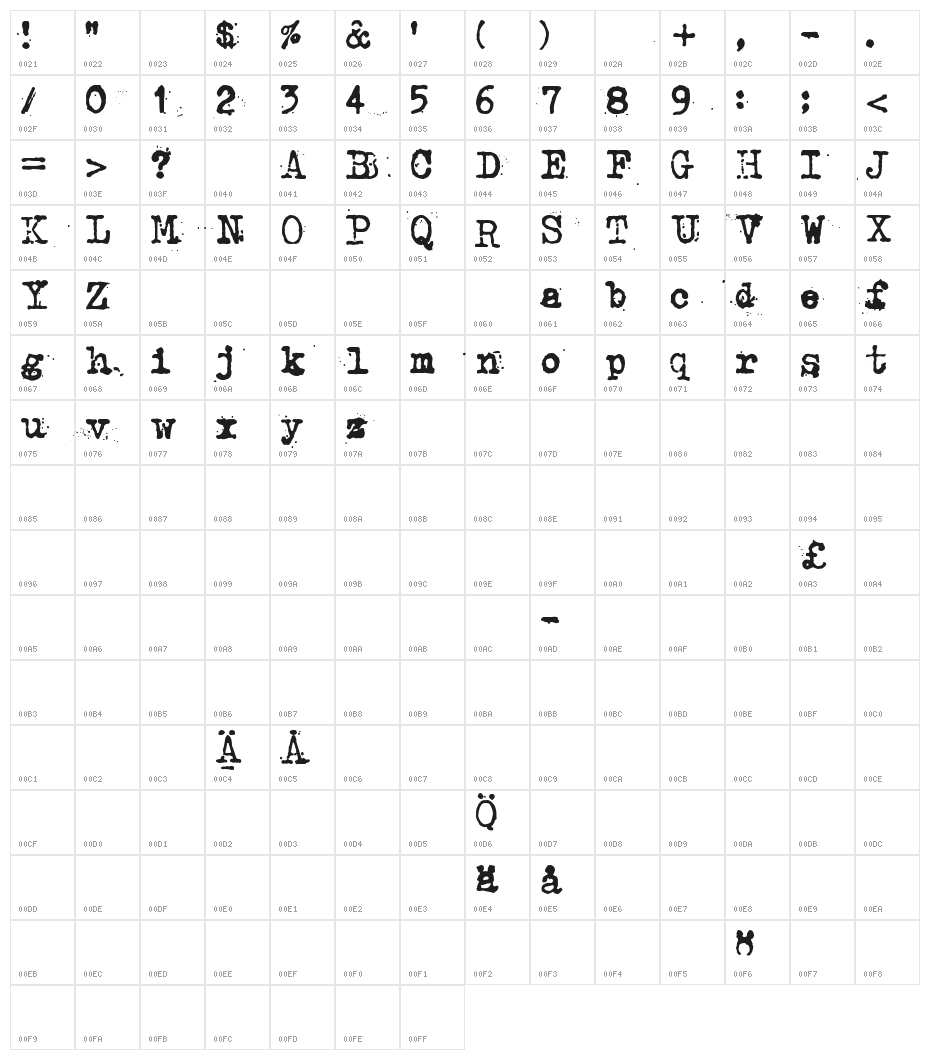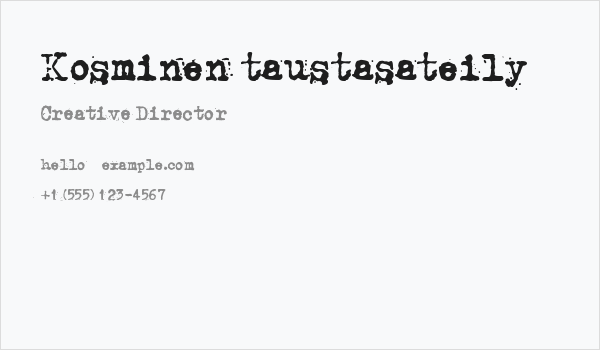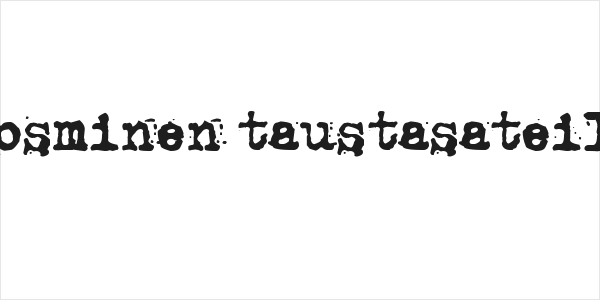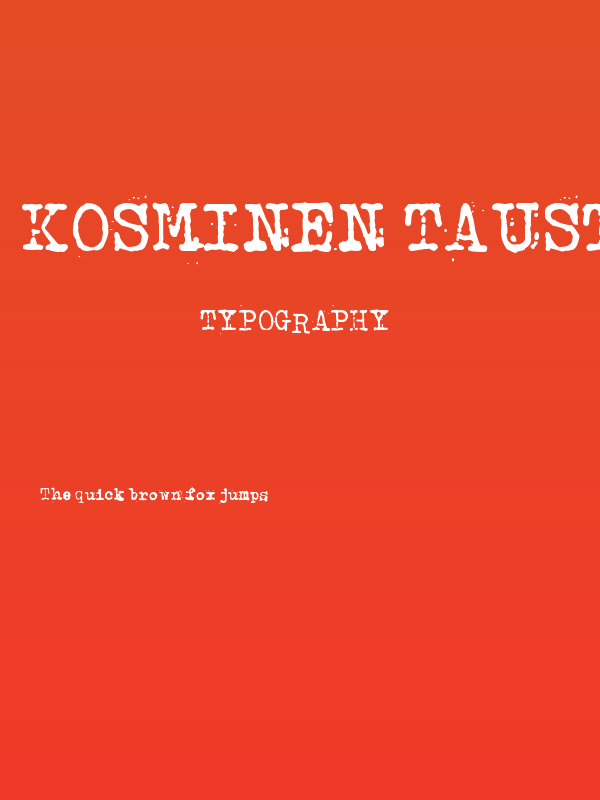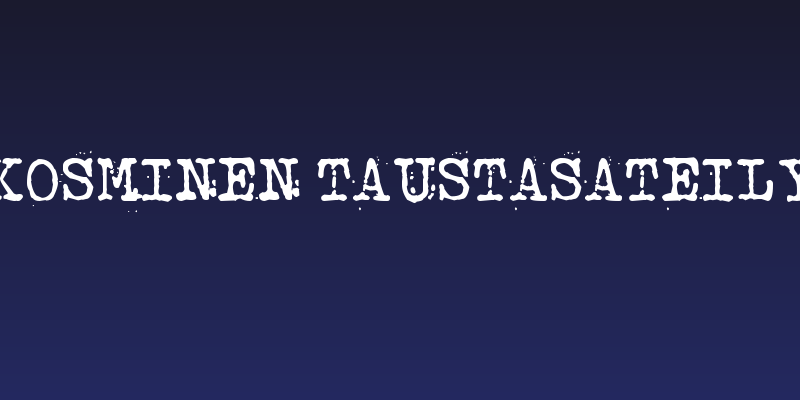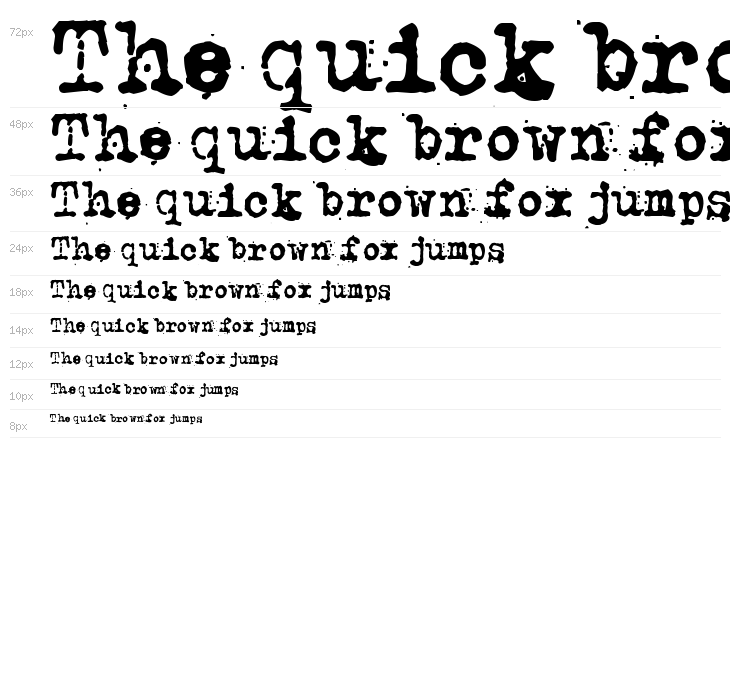
Kosminen taustasateily Font
Kosminen taustasateily Description
This font exhibits a distressed, grunge style with a textured appearance that mimics ink splatters or worn-out typewriter keys. The characters are bold and have a rough, uneven edge, giving them a vintage, industrial feel. The uppercase and lowercase letters maintain a consistent style, with the uppercase being slightly larger and more pronounced. Numbers and special characters follow the same distressed aesthetic, making the font suitable for projects that require a rugged, handmade look. The overall design is eye-catching and full of character, perfect for creating a strong visual impact.
| Overall Style | Vintage, Grunge |
| Use Case | Headlines, Posters, Branding |
| Proposed Projects | Ideal for posters, album covers, branding for edgy or alternative products, and any design needing a bold, vintage touch. |